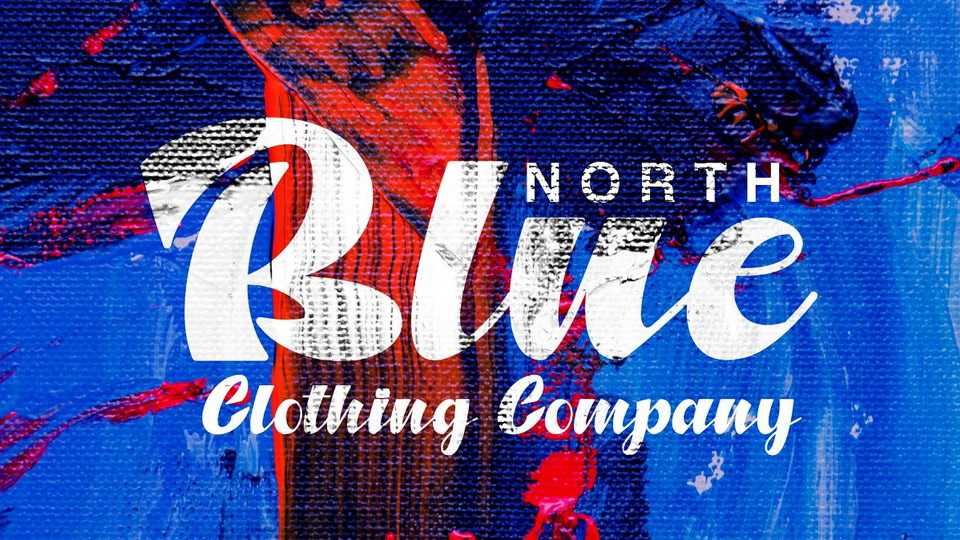
Download North Blue font, a strong bold stylish and quirky script. North Blue font is for those who want to show something eye-catching smooth and modern.